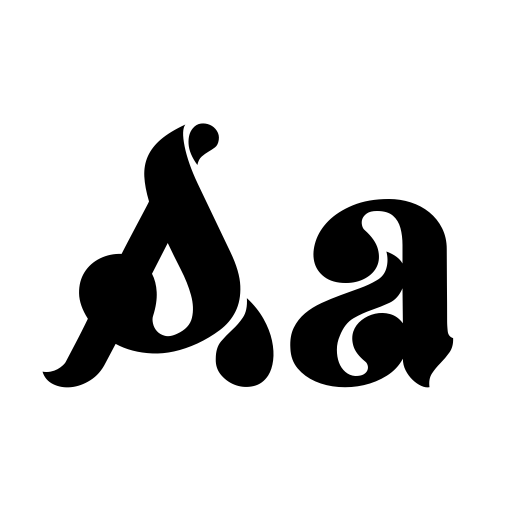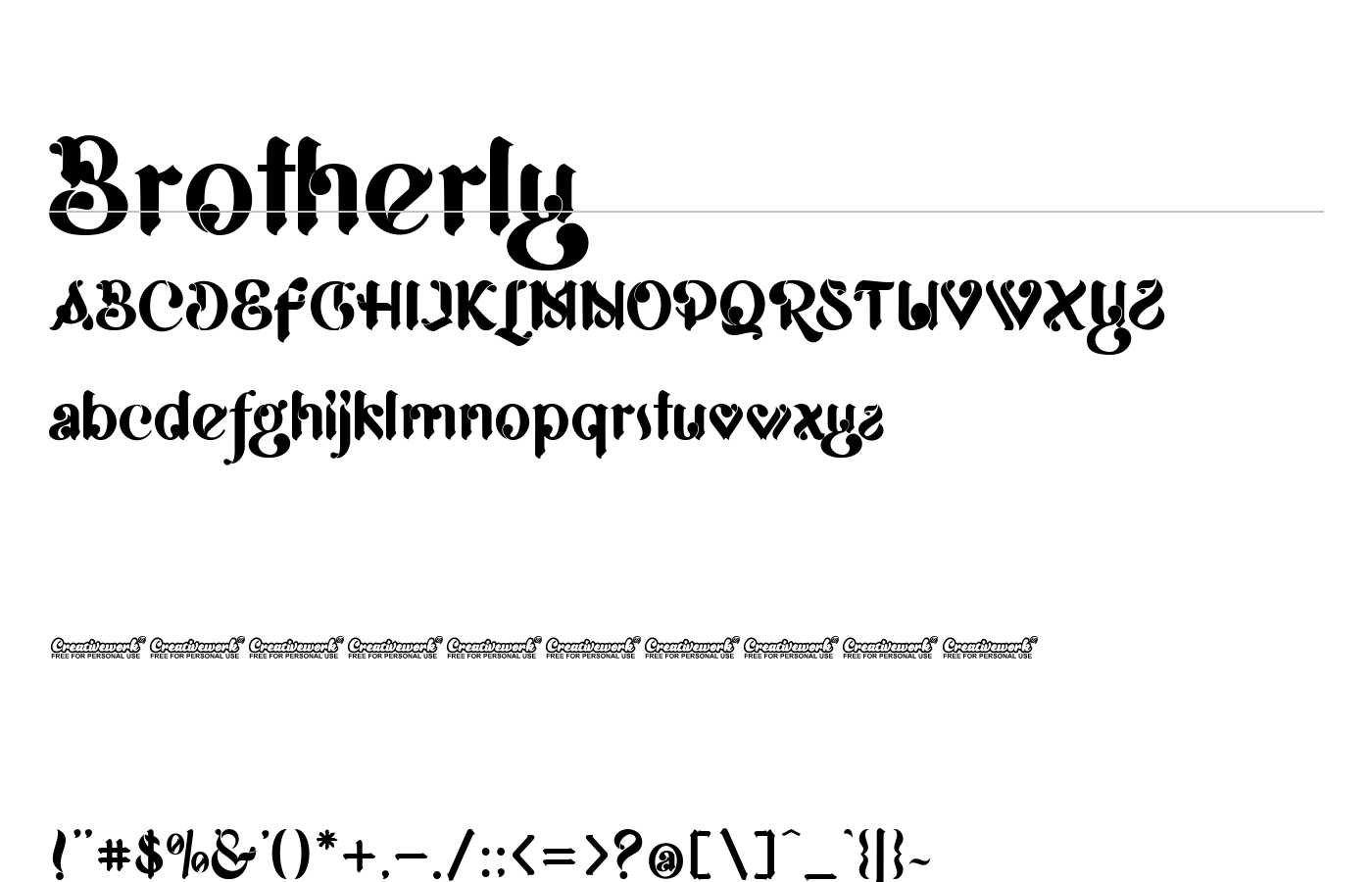
Brotherly is a bold, decorative serif font with a gothic, blackletter-inspired style characterized by high contrast between thick and thin strokes and intricate, sharp terminals. Its ornate letterforms and compact structure give it a vintage and dramatic feel, making it perfect for eye-catching headlines, logos, and branding that aim to evoke a sense of tradition and strong personality. This font works especially well for projects seeking a distinctive, old-world charm with a modern twist.
Brotherly Font
About Brotherly Font
| Font family | Brotherly Font |
| Designer | Daddi Daryawan |